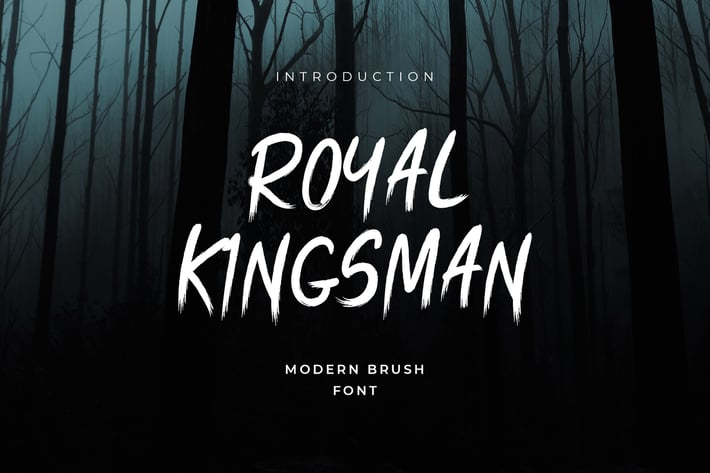
Royal Kingsman Handbrush Typeface
Looking for that special and friendly type ?
Royal Kingsman is casual handmade font that is perfect for any modern design including logo, branding, posters, wedding invitations. It's also could be good for both fun and semi-formal text.